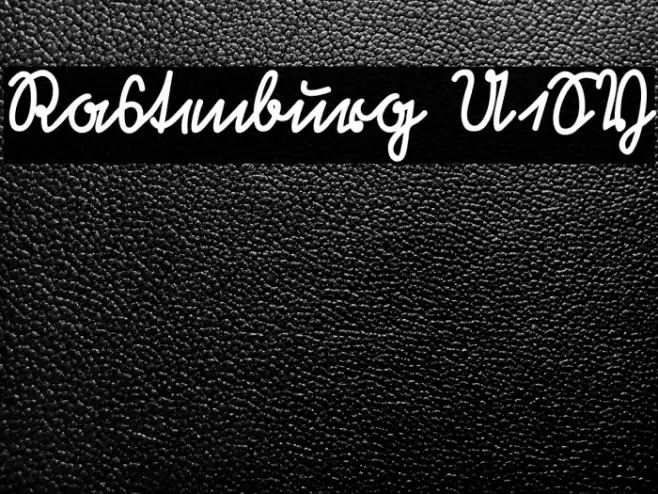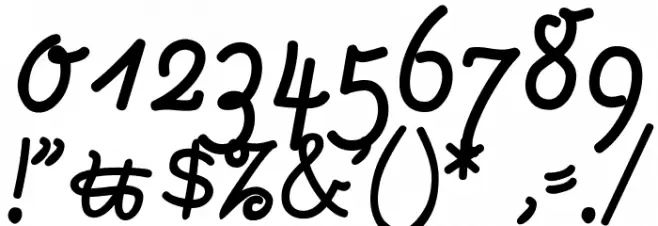
Rastenburg U1SY Font
Rastenburg U1SY Description
This font features a lively and flowing script style, characterized by its cursive, handwritten appearance. The letters are interconnected, creating a seamless and continuous flow that mimics natural handwriting. The strokes are bold and confident, with a consistent thickness that adds to its legibility and charm. The numbers and special characters maintain the same fluidity, ensuring a cohesive look across all elements. This font exudes a playful yet elegant vibe, making it suitable for creative and personal projects.
A bold, cursive script font with a lively, handwritten style from Uncategorized fonts.
- Proposed Projects: Ideal for wedding invitations, greeting cards, personal branding, and artistic projects.
- Use Case: Logos, Invitations, Artistic designs